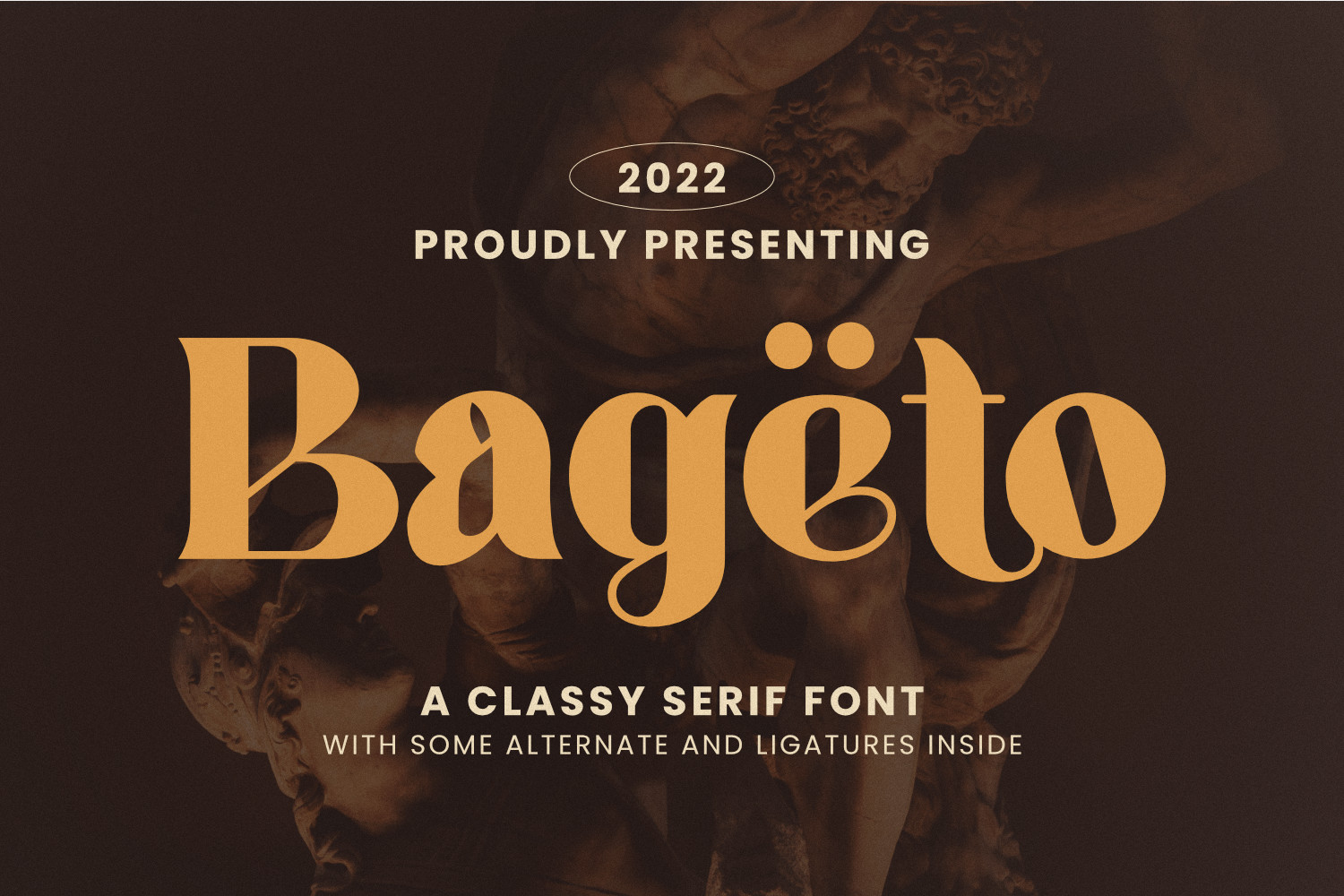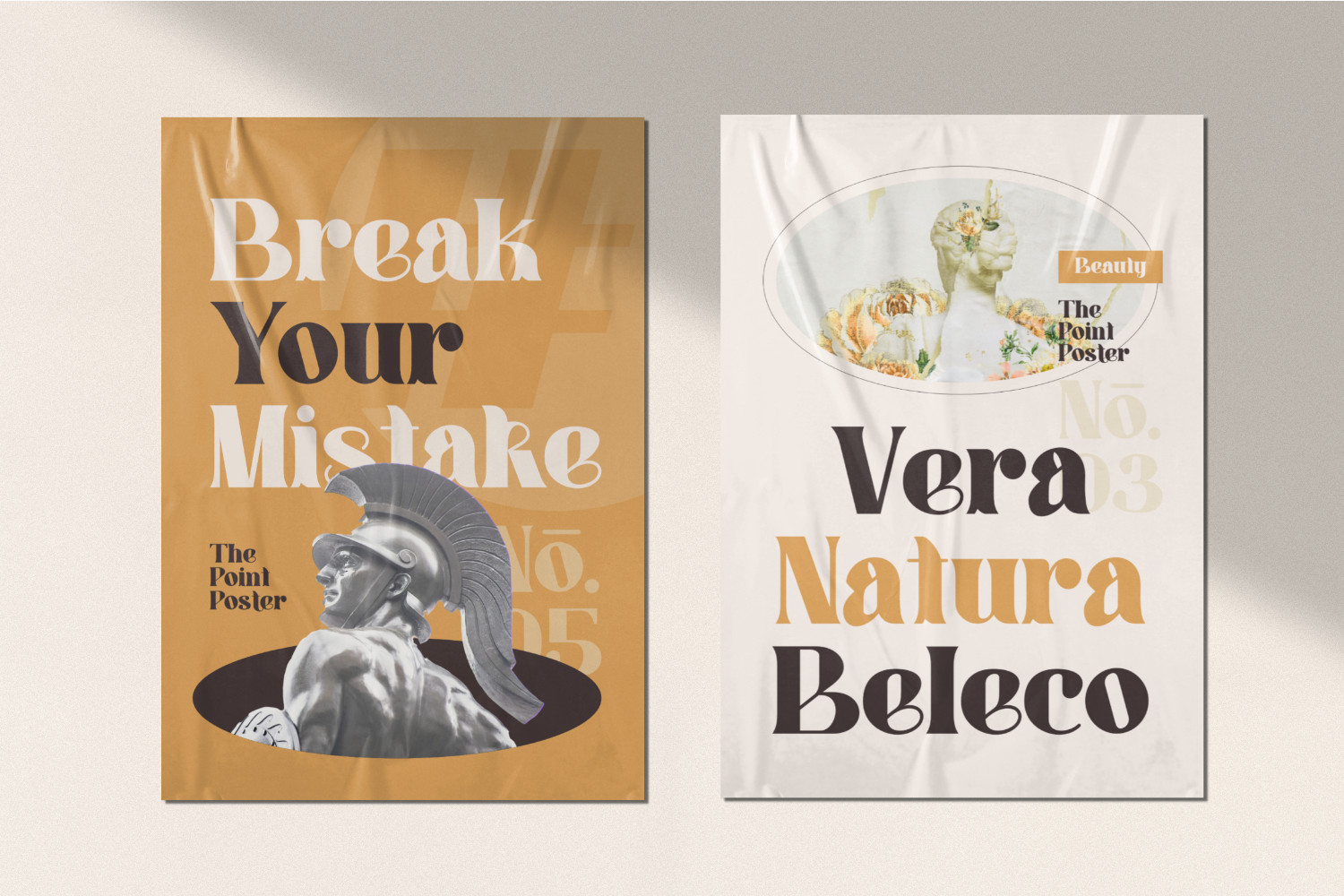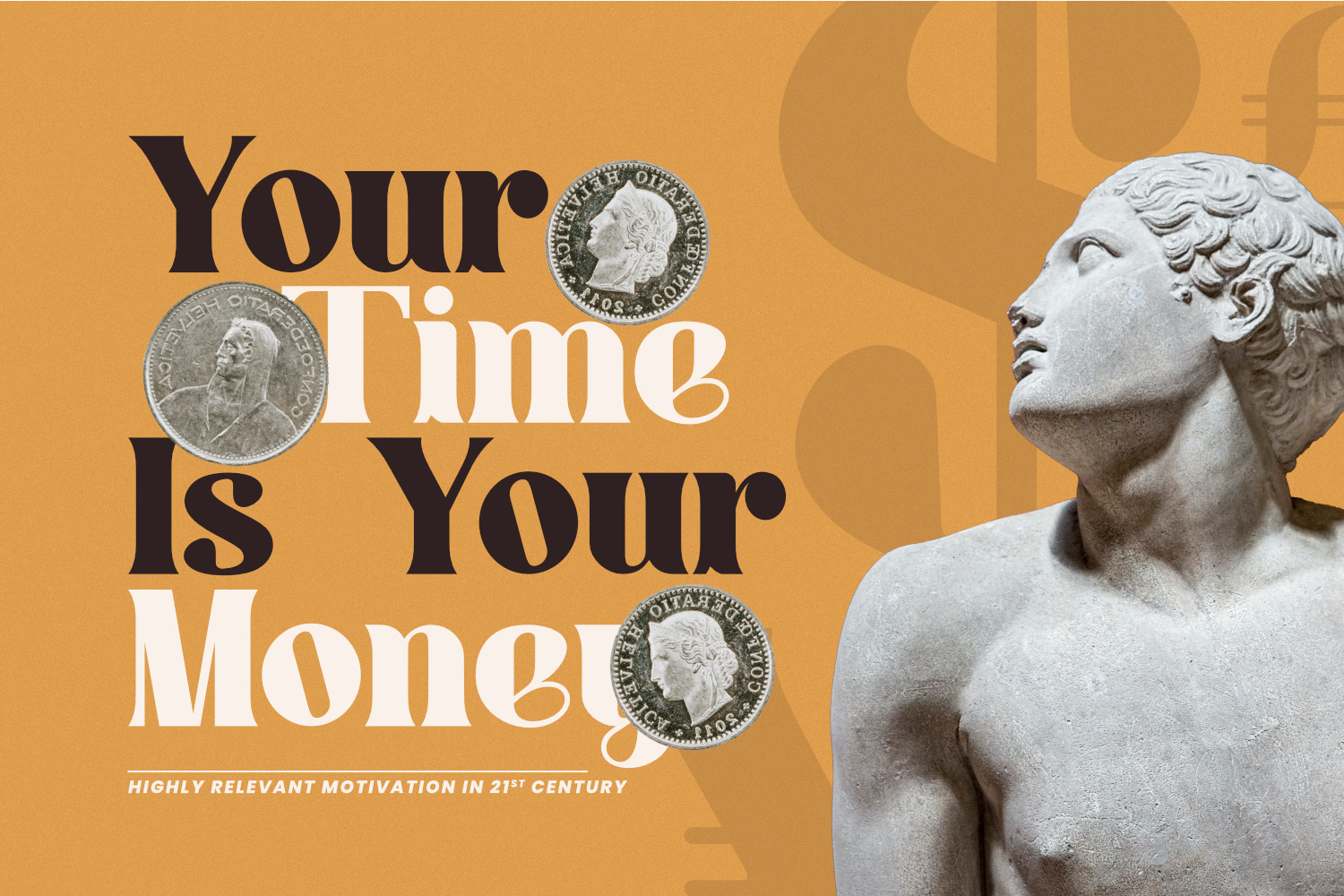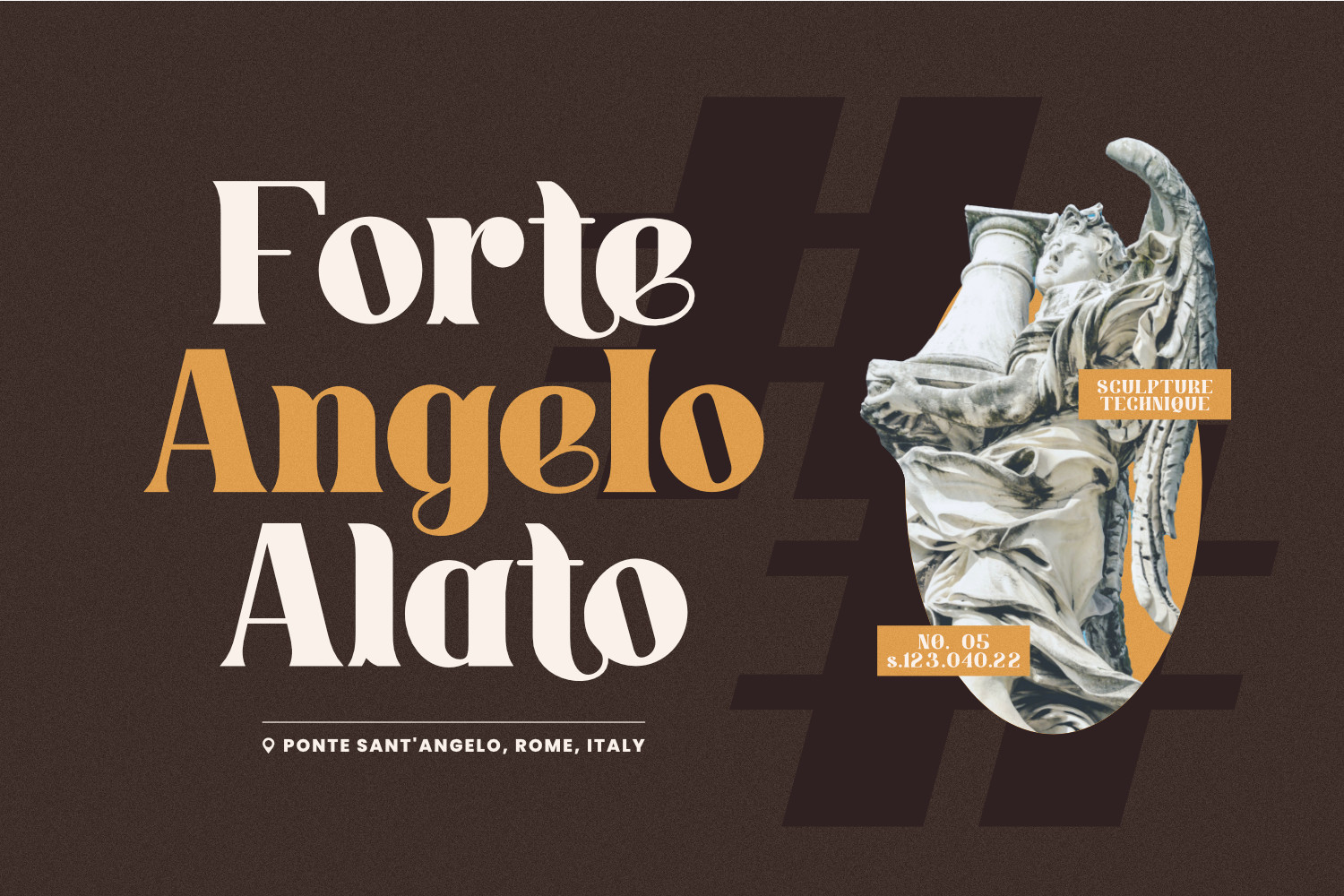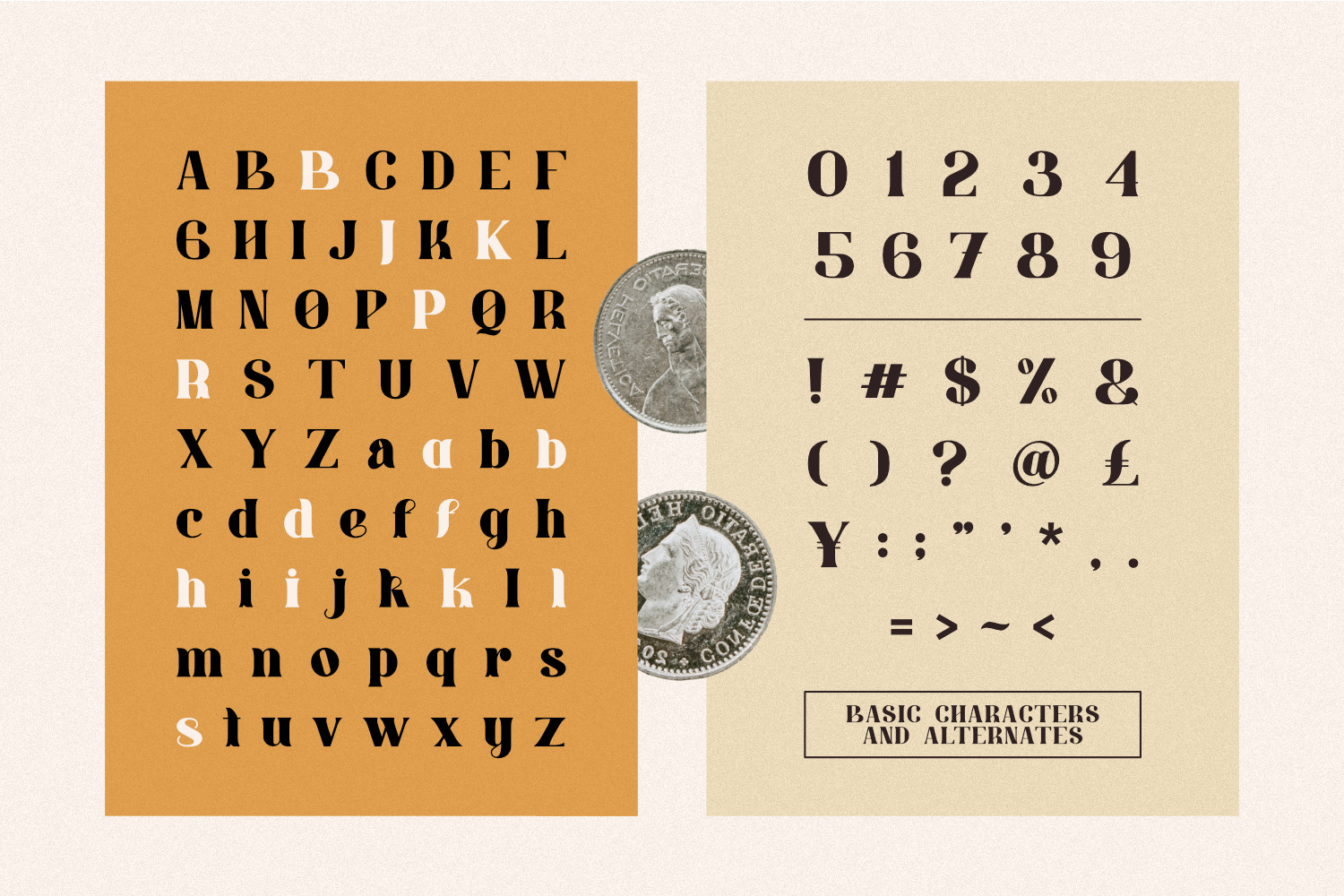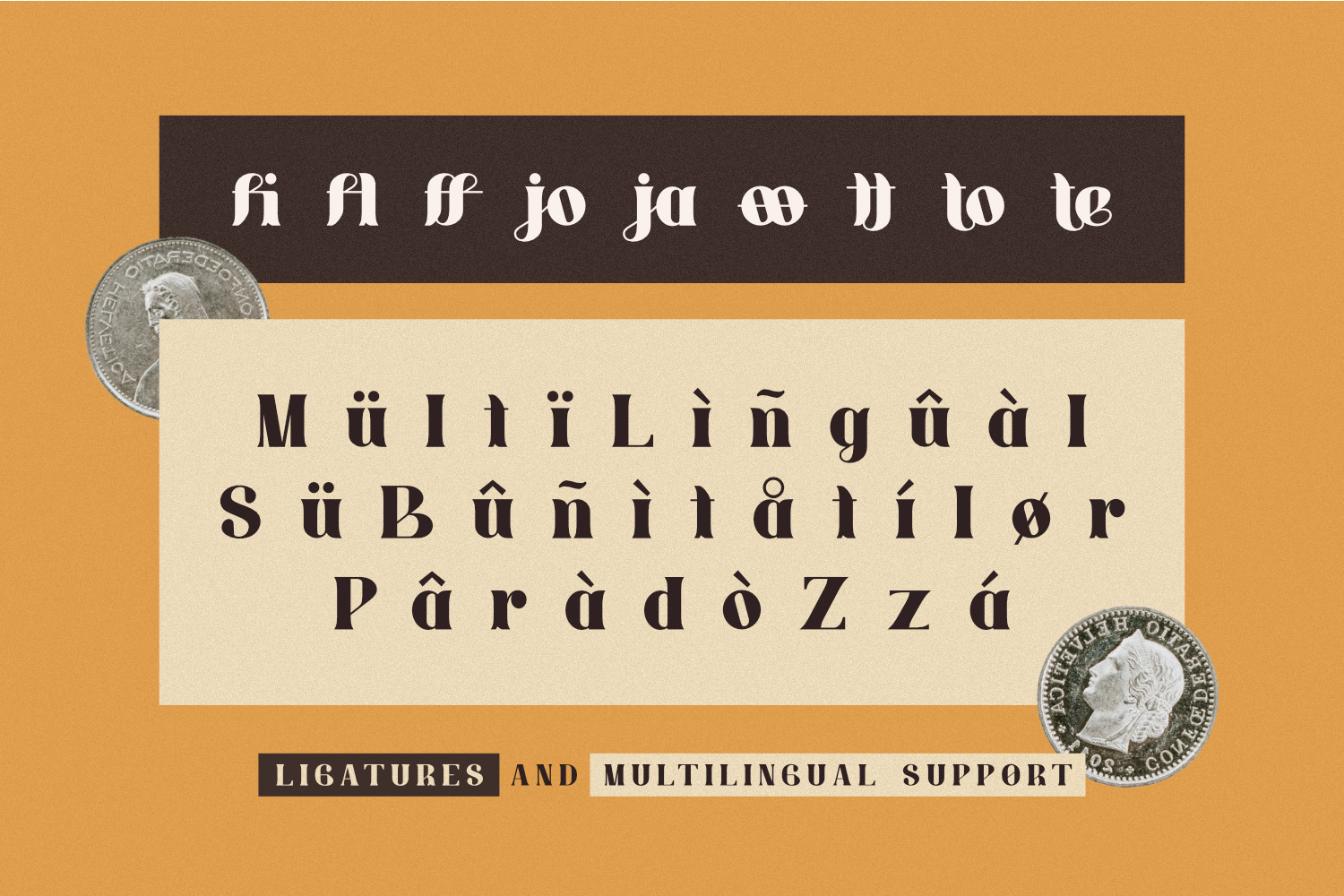
Bageto is a classy serif display font that elegantly blends modern flair with classic typographic tradition. Its refined curves, balanced proportions, and stylish alternates offer a high-end look that’s perfect for premium branding, editorial layouts, fashion headlines, and artistic posters. The design draws inspiration from vintage typography, elevated with smooth ligatures and ornate flourishes that add sophistication without compromising legibility.
Ideal for both expressive titles and tasteful body text, Bageto comes packed with ligatures and stylistic alternates to expand creative freedom. Multilingual support ensures it performs across diverse markets, while its soft contrast and playful detail make it ideal for packaging, museum posters, and luxury design presentations. A timeless serif that speaks with authority and charm.